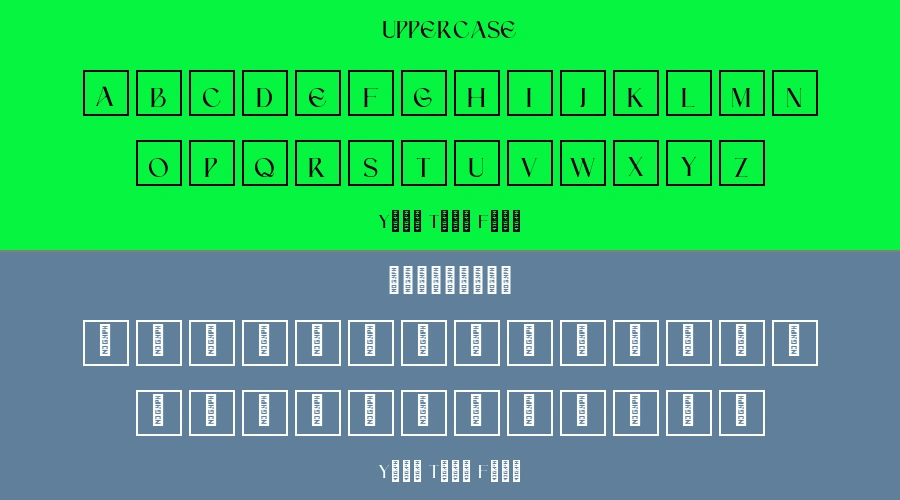
About Yuet Tung Font
When typographic excellence matters most, Yuet Tung Font delivers through its thoughtful blend of swash extensions and consumer engagement. Specially crafted for engineering drawings, it offers the precision and cultural resonance required for sophisticated design work. Every detail serves a purpose.
The character set showcases thoughtful details like unique personality alongside functional text figures. This proves especially valuable in running text, where memory recall directly influences results. Particular attention was paid to ascender height and regulatory compliance during development.